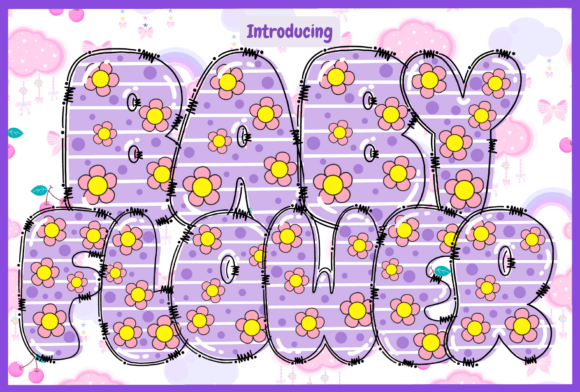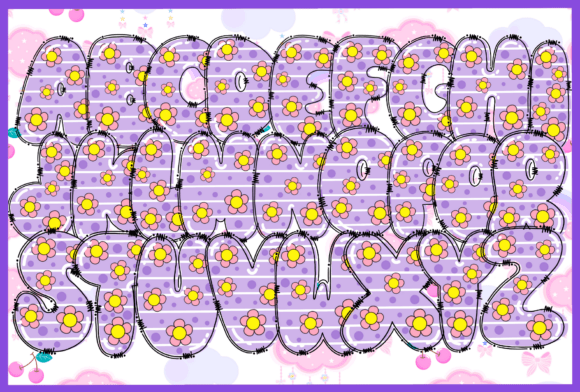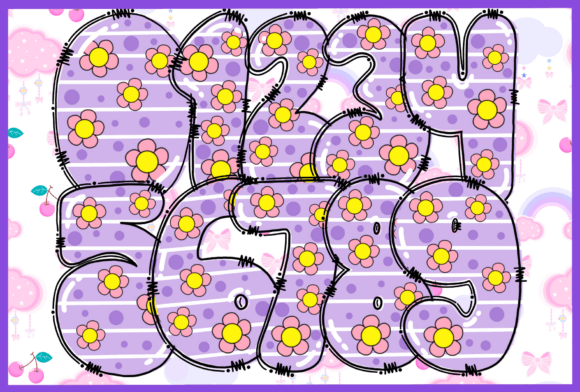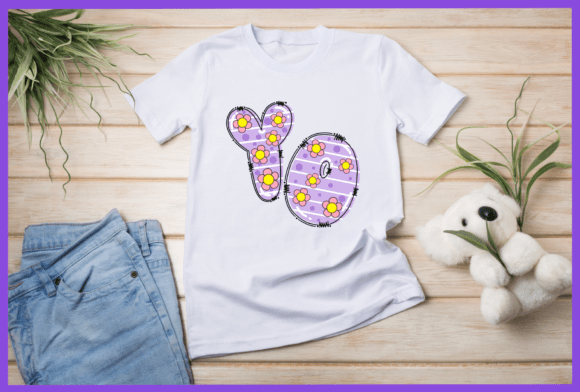
Baby Flower Font
About the Baby Flower Font
Presenting Baby Flower Font, a unique and stylish typeface that will make your work stand out. Baby Flower is a joyful and whimsical decorative font bursting with personality. Featuring bold bubble-like letterforms adorned with pastel stripes, floral patterns, and playful stitched outlines, this font is a visual delight tailored for children’s designs. Its cartoonish charm makes it ideal for nursery decor, kid-themed party invitations, apparel, storybooks, and toy packaging. Every letter radiates fun and innocence, making your designs instantly lovable and attention-grabbing.
Baby Flower’s playful energy makes it perfect for projects targeting young children, including children’s book illustrations, branding for toys or children’s clothing, and playful packaging designs. However, its decorative nature makes it unsuitable for body text or UI elements where legibility is paramount. Avoid using it for large amounts of text.
This font pairs well with clean sans-serif fonts like Open Sans for a balanced contrast, or with a playful script font such as Pacifico for a more whimsical feel. A simple, geometric sans-serif like Montserrat could also provide a sophisticated counterpoint to Baby Flower’s organic forms.
Its overall personality is undeniably joyful and friendly, radiating a sense of childlike wonder and innocence. Consider using Baby Flower to enhance the visual appeal of projects that benefit from a soft, approachable, and inherently optimistic aesthetic.
Baby Flower Font Usage Examples
Baby Flower Font Example